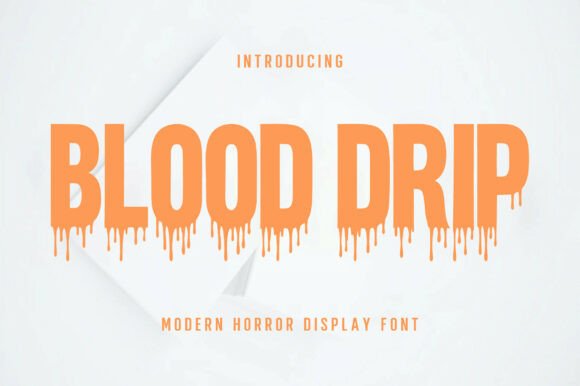
The Blood Drip Font: A Spooky Masterpiece for Your Design Projects
I’ll never forget the time I was working on a Halloween-themed project for a client, and I just couldn’t find the right font to capture the spooky essence of the season. The client wanted something bold, dramatic, and eerie, but I was coming up blank. That’s when I stumbled upon the Blood Drip font, and it was love at first sight! 💀
With its bold lettering and dripping effect that mimics flowing blood, Blood Drip is the perfect font for Halloween themes, horror posters, branding, and eye-catching visual projects. In this article, I’ll share my experience with this modern horror display font, its features, and how to make the most of it in your designs.
An Honest Review of Blood Drip Font
What I Love About Blood Drip Font ✨
- 💥 Bold and eye-catching: Blood Drip font makes a statement with its bold, dripping letters that are sure to grab attention.
- 🎃 Perfect for Halloween themes: The font’s spooky and dramatic effect is ideal for Halloween-themed projects, horror posters, and other creepy designs.
- 👻 Easy to use: Blood Drip font is straightforward to use, even for those who are new to design.
- 🤩 High-quality design: The font is well-designed, with clean lines and a professional finish.
While Blood Drip font is an excellent choice for many design projects, there are a few things to keep in mind:
- 🤔 Limited use cases: Due to its bold and dramatic effect, Blood Drip font may not be suitable for projects that require a more subtle or elegant look.
- ⚠️ Overuse can be overwhelming: Using Blood Drip font excessively can be overwhelming and may detract from the overall impact of your design.
The Backstory of Blood Drip Font
Blood Drip font was designed by a team of creatives who wanted to create a font that would capture the essence of horror and the supernatural. Inspired by classic horror movies and haunted houses, the font’s bold, dripping letters are meant to evoke a sense of fear and unease.
Q: What is Blood Drip font?
A: Blood Drip font is a modern horror display font featuring bold lettering with a dripping effect that mimics flowing blood.